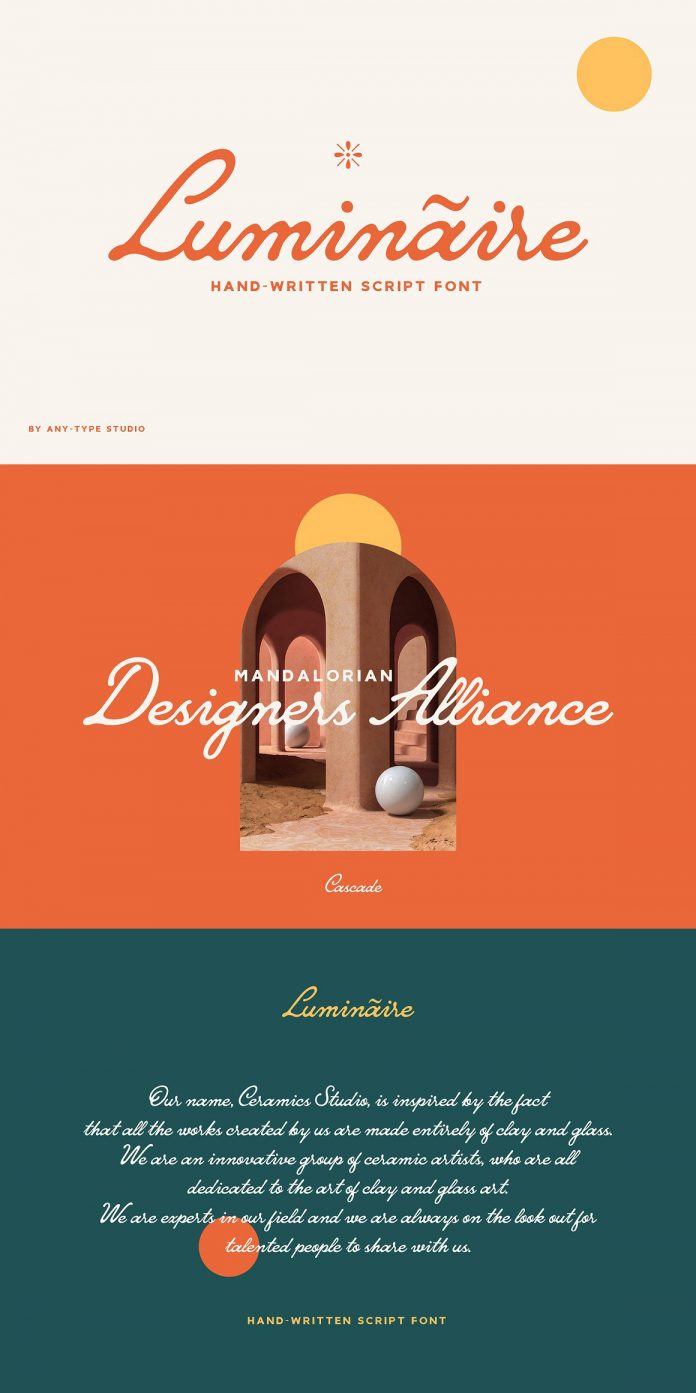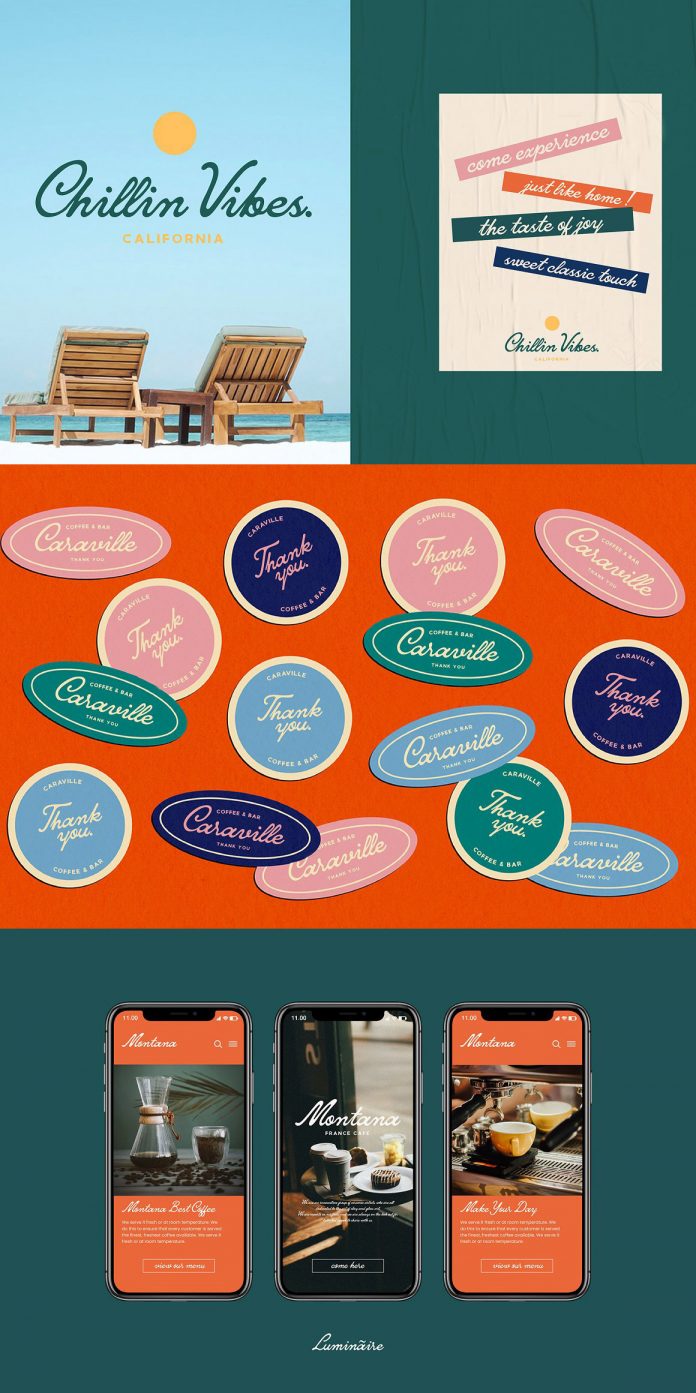
Luminaire Script, a handwritten script font designed and published by foundry by Any-Type.
Take a look at Luminaire Script, a new handwritten script font that offers a natural look and feel. You can use this typeface for a wide range of design projects such as logotypes, quotes, invitations, greeting cards, packaging, website headers, posters, apparel design, labels, etc. If you decide to download this beautiful script font you get three formats including Opentype, Truetype, and web font format. The Luminaire Script font is equipped with uppercase lowercase letters as well as numerals and punctuations. Its Latin-based character set supports multiple languages. Just click on one of the following links to get further information about this beautifully designed script font.